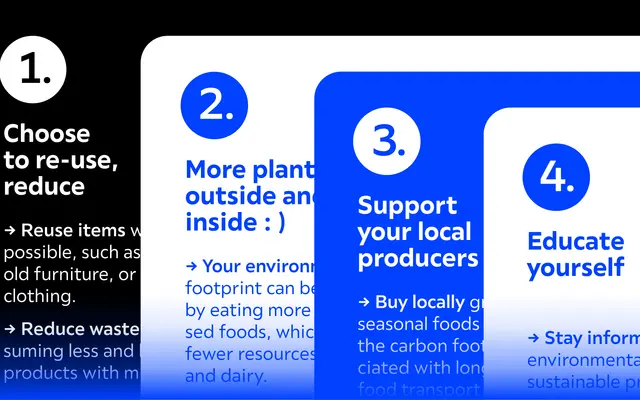
A 16-style variable sans-serif from Typejockeys, designed to sit quietly in a layout while offering coverage from Thin to Black with Cyrillic support.
A humanist-leaning sans-serif in 16 styles, running from Thin to Black across upright and italic cuts. Available as a variable font, Marie is intended to work without drawing attention to itself, leaving the design breathing room rather than competing with it. Cyrillic support and a set of OpenType features including tabular figures, fractions and arrows extend its utility for multilingual and typographically detailed work.
Marie is a sans-serif family with a friendly, open character and smooth curves that suggest a humanist influence, designed to be versatile and unobtrusive across a wide range of applications.